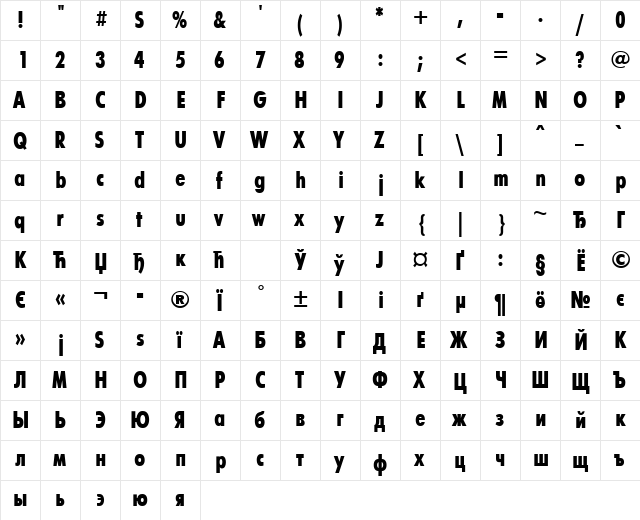
font194 Regular
Design Context for font194 Typeface
font194 takes a measured approach to typography — its balanced proportions and neutral character make it a reliable workhorse for both digital and print work.